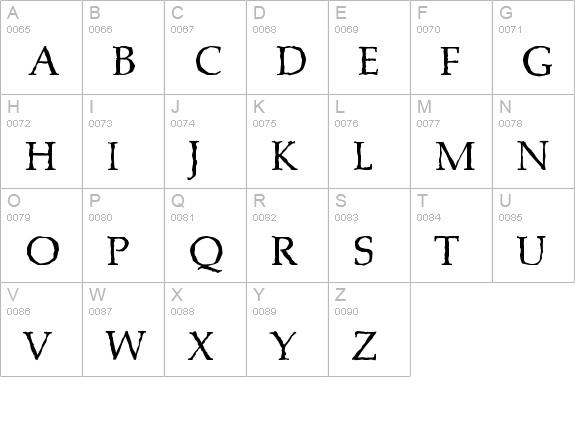
MarathonAntique-Regular is the standard, neutral variant in the MarathonAntique typeface family \xE2\x80\x94 well suited to general body text, paragraphs, and standard typographic work.
MarathonAntique-Regular is a classic and elegant serif font that exudes timeless charm and sophistication. With its clean lines and balanced proportions, this font is perfect for adding a touch of refinement to your projects. Whether you're designing invitations, branding materials, or editorial layouts, MarathonAntique-Regular is sure to make a lasting impression. The best part? MarathonAntique-Regular is available for free download at FontsMarket.com. Simply head to the website to access this versatile font and elevate your designs with its distinctive style. Embrace the beauty and versatility of MarathonAntique-Regular in your creative endeavors and let its timeless appeal enhance your work effortlessly.